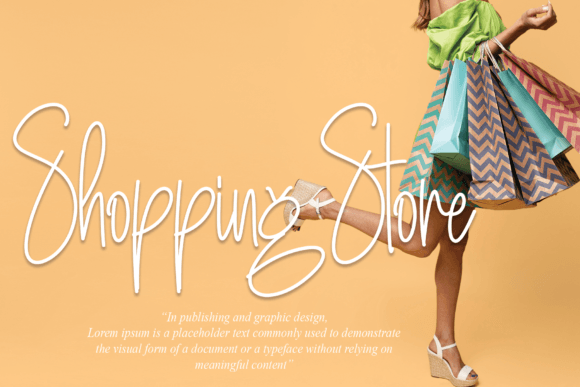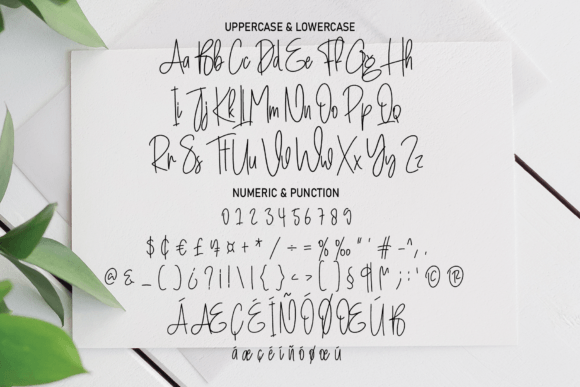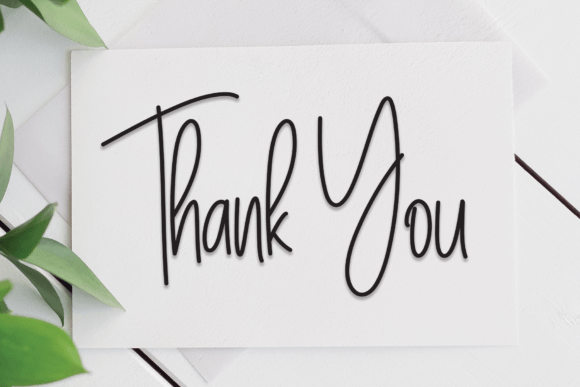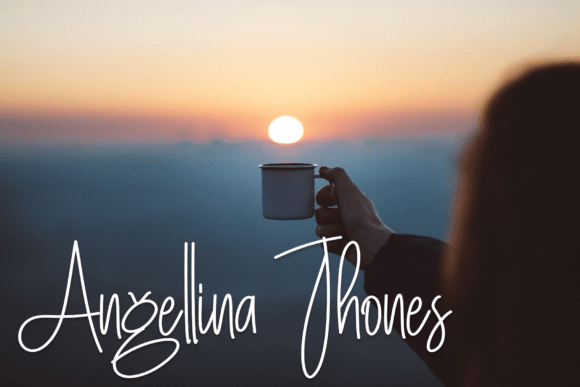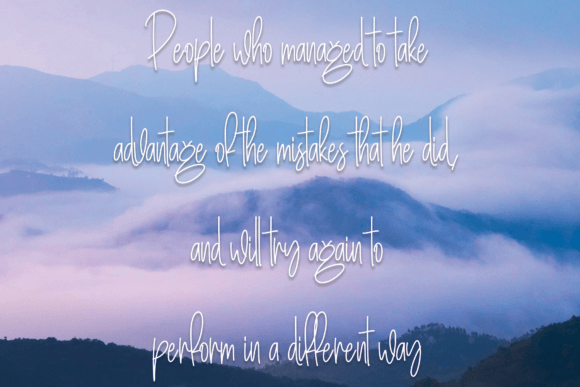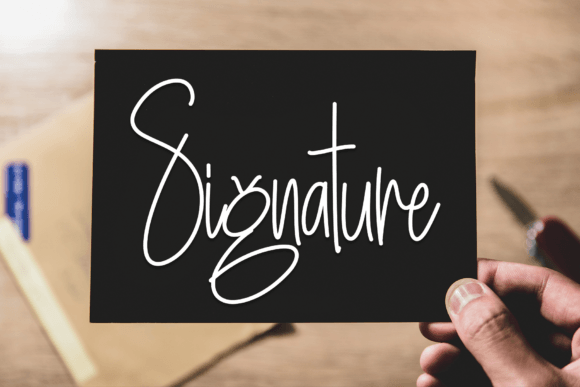
Introducing Commingsoon Font: A Delicate and Elegant Handwritten Font
Are you a designer or crafter looking for a font that exudes elegance and sophistication? Look no further than Commingsoon Font, a delicate and thin-lettered handwritten font that is sure to elevate your designs to the next level. In this article, we’ll take a closer look at Commingsoon Font, its features, and why it’s a great addition to any design project.
What is Commingsoon Font?
Commingsoon Font is a beautiful, handwritten font that is characterized by its delicate and thin letters. The font has a elegant and refined feel to it, making it perfect for designs that require a touch of sophistication. The letters are well-balanced and carefully crafted to ensure that they are easy to read and visually appealing.
Key Features of Commingsoon Font
So, what makes Commingsoon Font so special? Here are some of its key features:
- Delicate and thin letters: The font’s letters are extremely thin and delicate, giving it a elegant and refined feel.
- Well-balanced characters: The characters in Commingsoon Font are carefully crafted to ensure that they are well-balanced and visually appealing.
- Beautiful and elegant feel: The font has a beautiful and elegant feel to it, making it perfect for designs that require a touch of sophistication.
- Matches a wide pool of designs: Commingsoon Font is versatile and can be used in a wide range of designs, from wedding invitations to branding and packaging.
Why Choose Commingsoon Font?
So, why should you choose Commingsoon Font for your design project? Here are some reasons:
- Unique and distinctive: Commingsoon Font is a unique and distinctive font that will set your design apart from others.
- Elegant and sophisticated: The font’s elegant and sophisticated feel makes it perfect for designs that require a touch of luxury.
- Easy to read: Despite its delicate letters, Commingsoon Font is easy to read and understand.
- Versatile: The font can be used in a wide range of designs, from digital to print.
Tips and Tricks for Using Commingsoon Font
Here are some tips and tricks for using Commingsoon Font:
- Use it for headings: Commingsoon Font is perfect for headings and titles, adding a touch of elegance and sophistication to your design.
- Pair it with other fonts: Pair Commingsoon Font with other fonts to create a unique and visually appealing design.
- Use it for digital and print designs: Commingsoon Font can be used for both digital and print designs, making it a versatile addition to your font collection.
Commingsoon Font is a beautiful and elegant handwritten font that is perfect for designers and crafters looking to add a touch of sophistication to their designs. With its delicate and thin letters, well-balanced characters, and elegant feel, it’s a great addition to any design project. Whether you’re designing a wedding invitation, a brand identity, or a packaging design, Commingsoon Font is sure to impress.